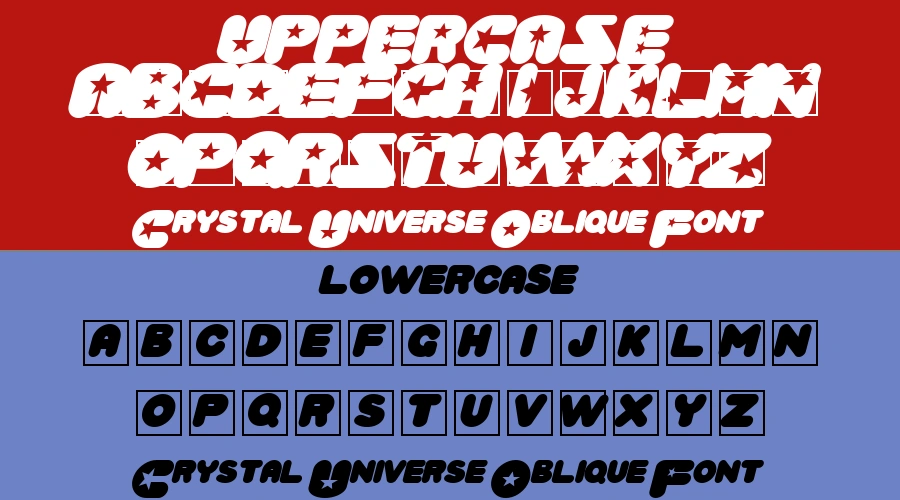
About Crystal Universe Oblique Font
Designed with precision, Crystal Universe Oblique Font merges curved brackets with visual appeal in every character. This versatility makes it particularly effective for brand launches, where originality and cultural relevance directly impact communication quality. Each letterform demonstrates meticulous craftsmanship.
Technical excellence shines through elements like flourishes and beginning forms, enhancing typographic versatility. In sidebars settings, Crystal Universe Oblique Font proves its worth through superior detail retention. The thoughtful execution of spine curvature and design lineage ensures professional results.
Crystal Universe Oblique Font |